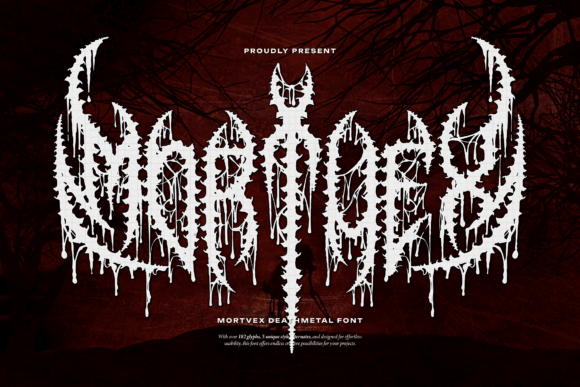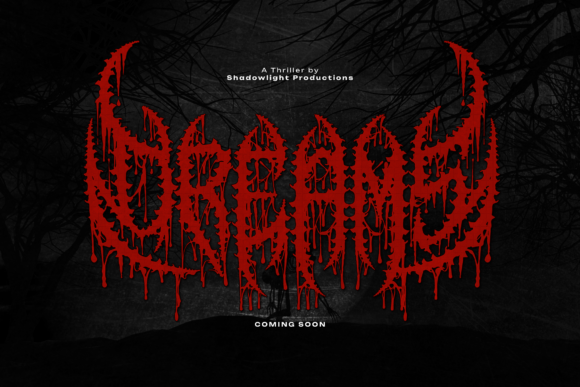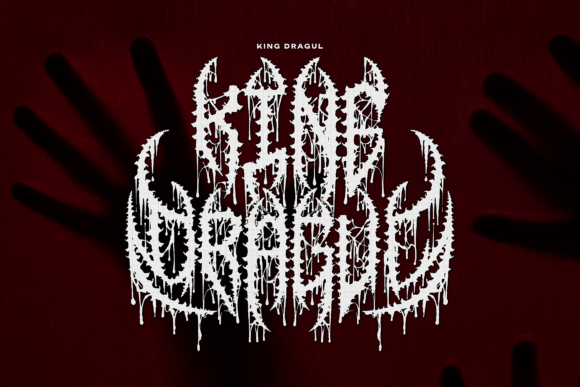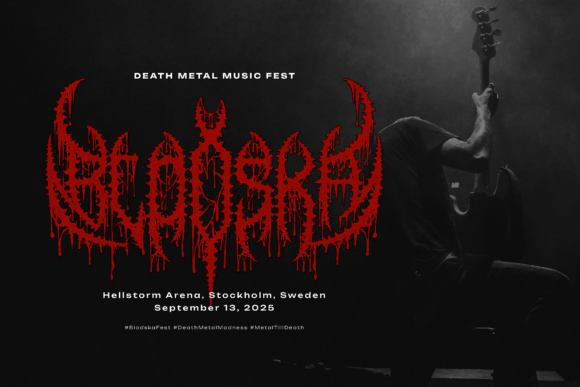
Mortvex Font: A Killer Grunge Display Font for Horror Movie Posters!
About the Mortvex Font
Crafted with precision, the Mortvex Font is ready to bring your ideas to life. Mortvex is a death metal font, suitable for any projects such as: logos, branding projects, homeware designs, product packaging, mugs, quotes, posters, shopping bags, t-shirts, book covers, name card, invitation cards, greeting cards, label, photography, watermark, special events, and all your other lovely projects that need a Death Metal Font taste.
Mortvex excels in headline use, branding applications requiring a strong visual impact, and poster design where its aggressive aesthetic can command attention. It’s also effective for short, impactful phrases on packaging or merchandise. However, its highly stylized forms make it unsuitable for body text or UI elements where readability is paramount; long blocks of Mortvex would be incredibly difficult to read.
The aggressive, almost brutalist nature of Mortvex calls for careful pairing. A clean, geometric sans-serif like Montserrat would provide a stark contrast and enhance readability in supporting text. Alternatively, a classic serif like Garamond could offer a sophisticated counterpoint, highlighting the deliberate intensity of Mortvex. Avoid pairing it with other highly decorative fonts; the result would be visually cluttered and lack focus.
Mortvex projects a bold, rebellious, and undeniably intense personality. Brands aiming for a gritty, powerful image—within music, streetwear, or extreme sports—would find it particularly effective.
Mortvex Font Usage Examples
Mortvex Font Example